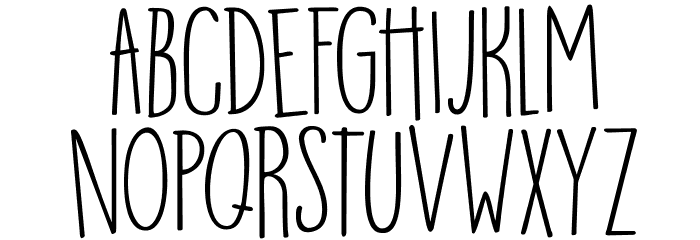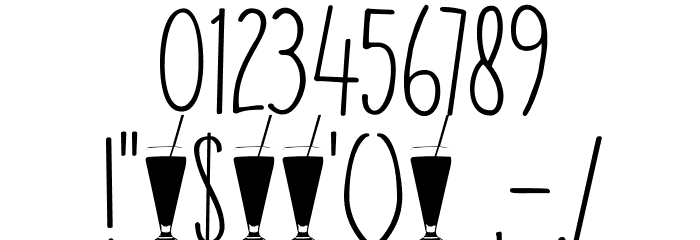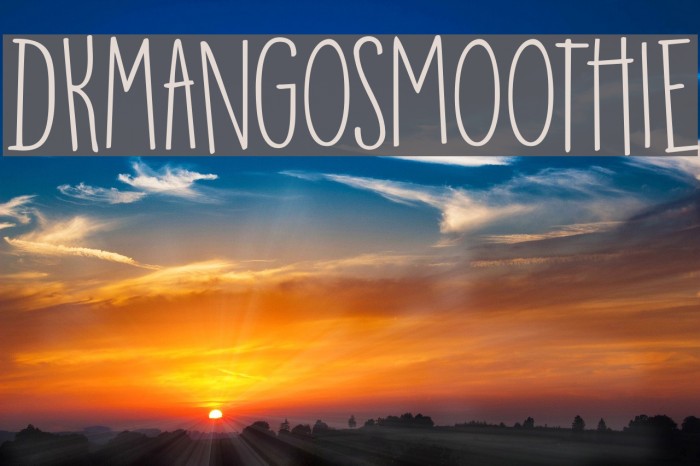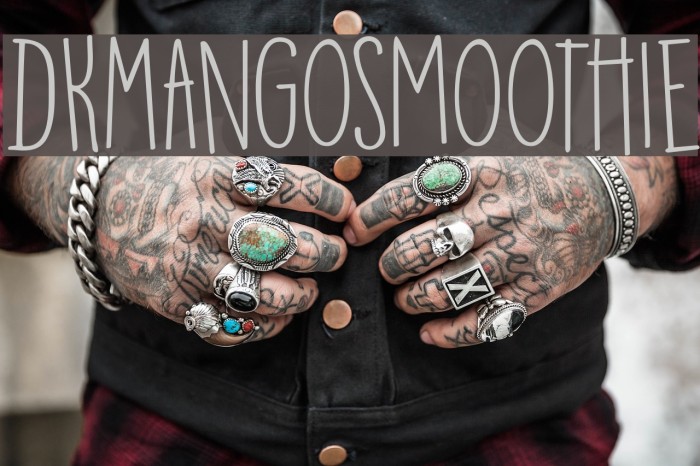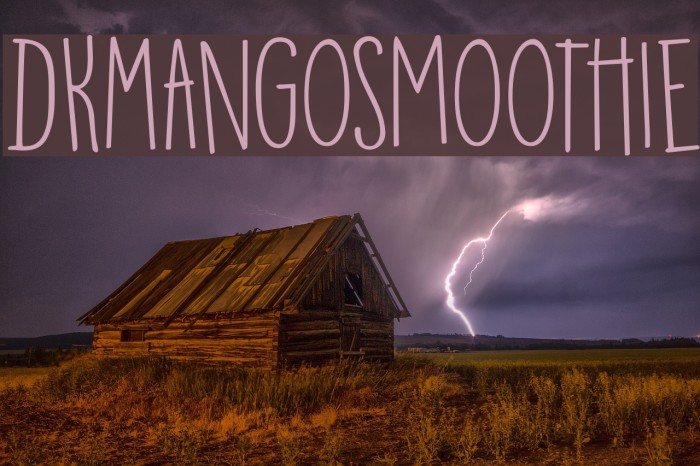
DKMangoSmoothie Font
This font features a playful and casual handwritten style, characterized by tall, narrow letters with a slight slant. The strokes are consistent in thickness, giving it a uniform appearance. The uppercase and lowercase letters maintain a cohesive look, with rounded edges that add to its approachable feel. The numerals are similarly styled, ensuring readability while maintaining the font's unique charm. Special characters are included, matching the overall aesthetic with their quirky and informal design. This font is ideal for projects that require a friendly and informal touch, such as children's books, casual invitations, or playful branding.
A playful, handwritten font with tall, narrow letters and consistent stroke thickness.
- Proposed Projects: Ideal for children's books, casual invitations, playful branding, and informal designs.
- Overall Style: Casual
- Use Case: Headlines, Logos, Informal Text